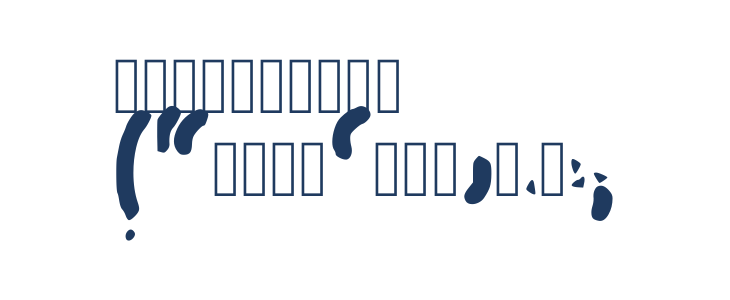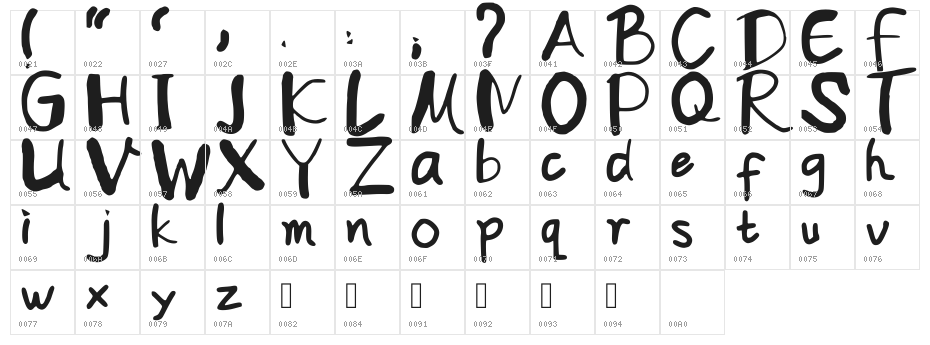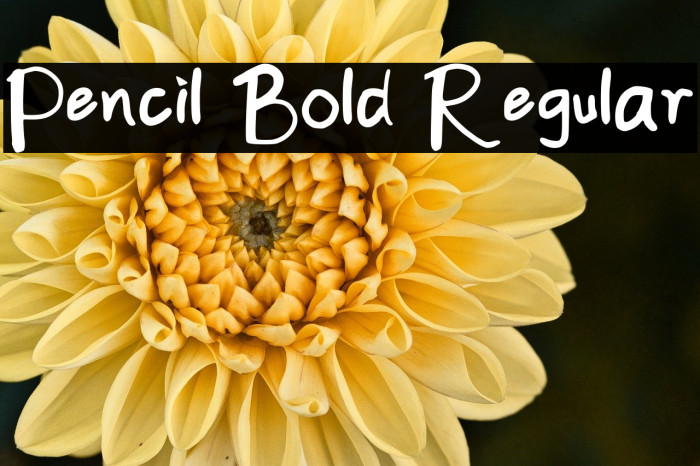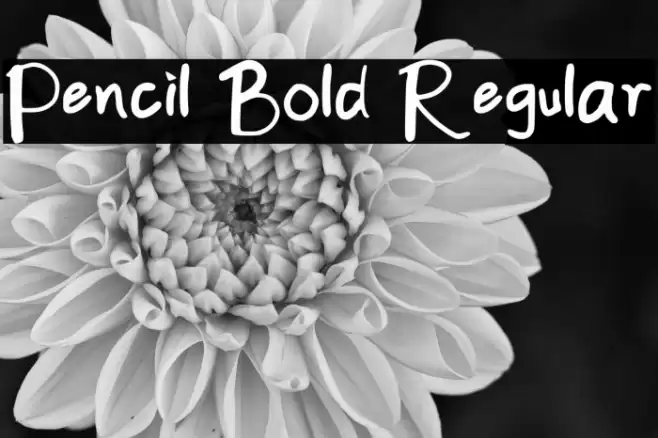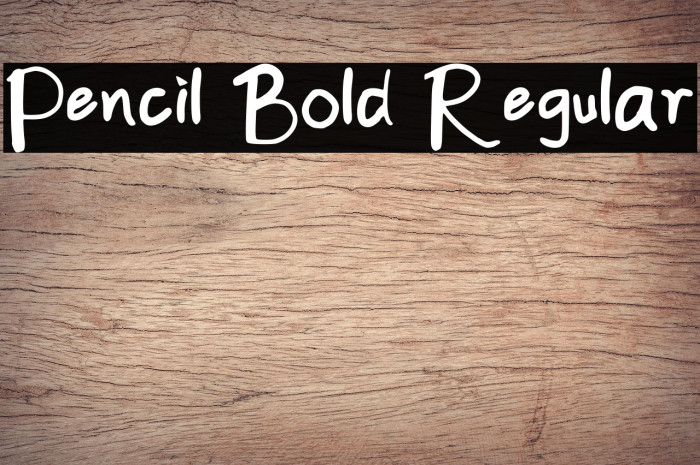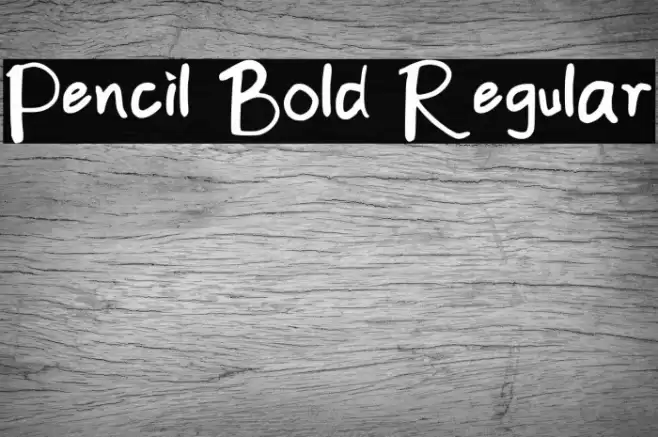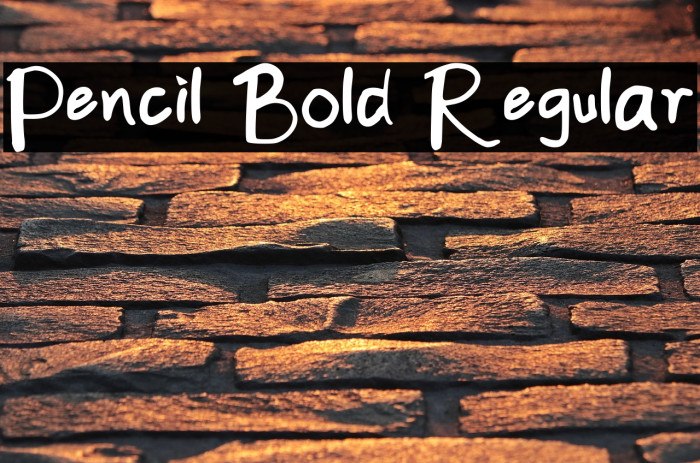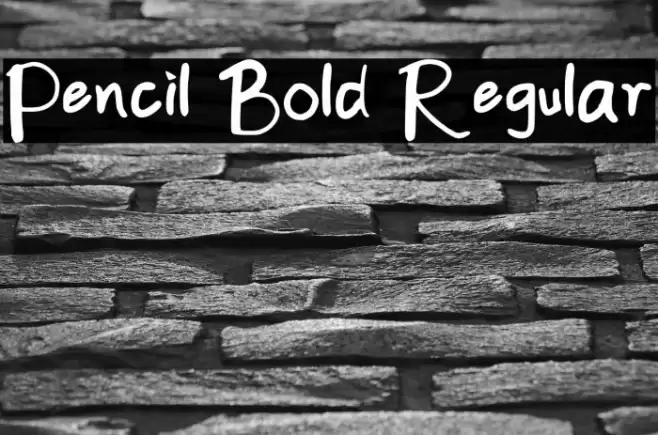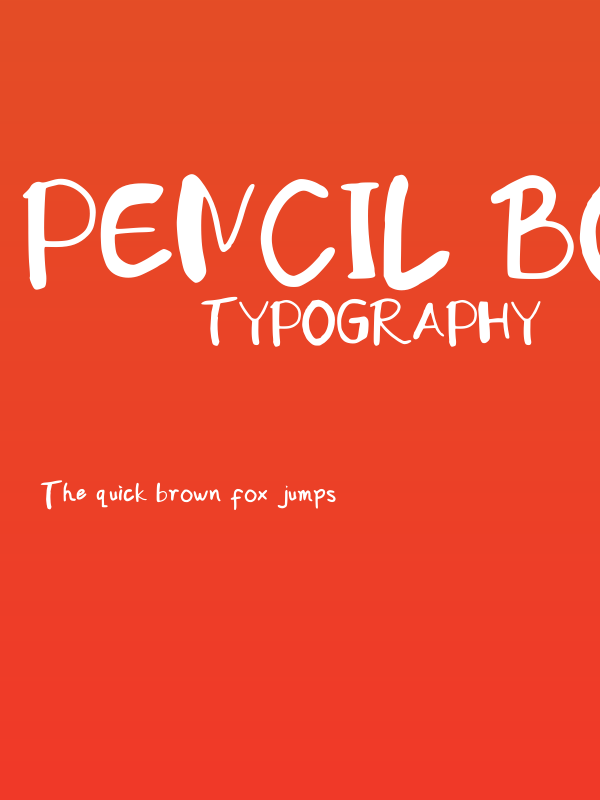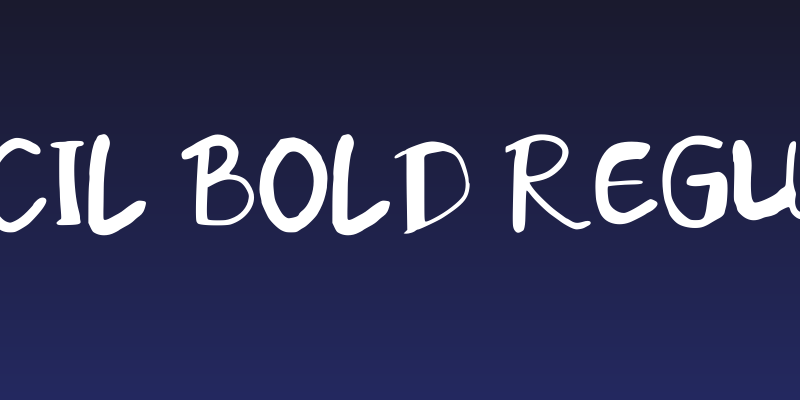
Pencil Bold Regular Font
Pencil Bold Regular Description
This font exudes a playful and informal vibe, reminiscent of handwritten text with a bold and expressive flair. The characters are slightly irregular, adding a personal touch that feels both approachable and dynamic. The strokes are thick and consistent, providing a strong presence on the page. The uppercase and lowercase letters maintain a cohesive style, with rounded edges and a slight tilt that enhances the casual aesthetic. The numerals and special characters follow the same design principles, ensuring uniformity across all glyphs. This font is perfect for projects that require a touch of personality and creativity.
| Proposed Projects | Ideal for children's books, creative branding, casual invitations, and playful social media graphics. |